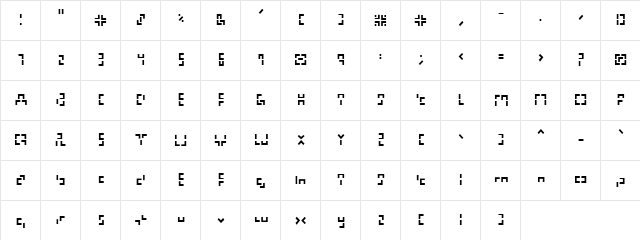
321 eng Font Preview
321 eng
321 eng Font Details
| Style | eng |
Design Context for 321 Typeface
321 takes a measured approach to typography — its balanced proportions and neutral character make it a reliable workhorse for both digital and print work.